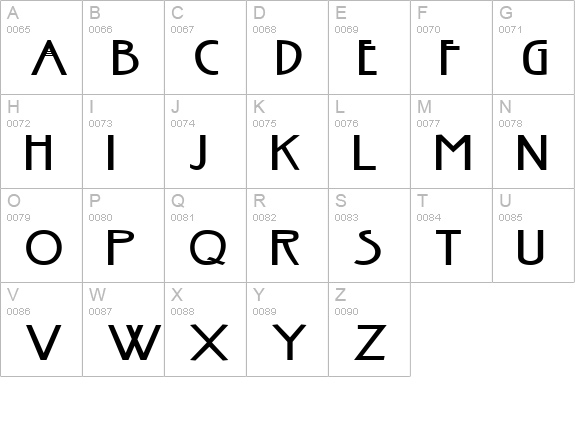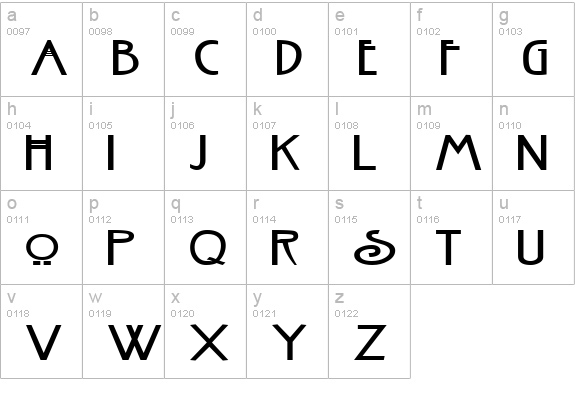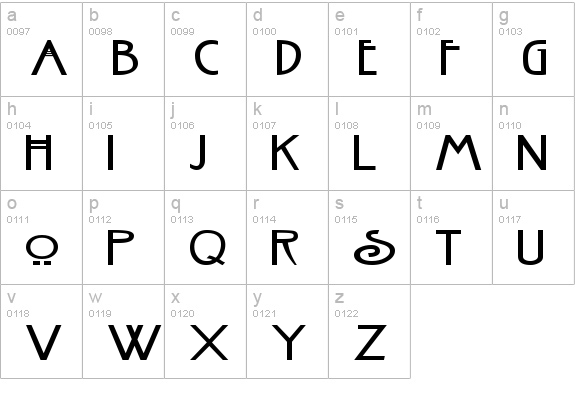
Fanzee-Extended Normal is the standard, neutral, extended-width variant in the Fanzee typeface family \xE2\x80\x94 well suited to general body text, paragraphs, and standard typographic work.
Fanzee-Extended Normal font is a sleek and modern typeface that exudes sophistication and style. With its clean lines and elegant curves, this font is perfect for a wide range of design projects, from branding to editorial layouts. Its extended version adds a touch of uniqueness and makes your text stand out. The best part about Fanzee-Extended Normal font is that it is completely free to use. You can easily download it from FontsMarket.com and start using it in your projects right away. Whether you're working on a website, a poster, or a business card, this font will add a touch of class and professionalism to your designs. Don't miss out on this opportunity to enhance your projects with the Fanzee-Extended Normal font. Download it for free today and elevate your design game!